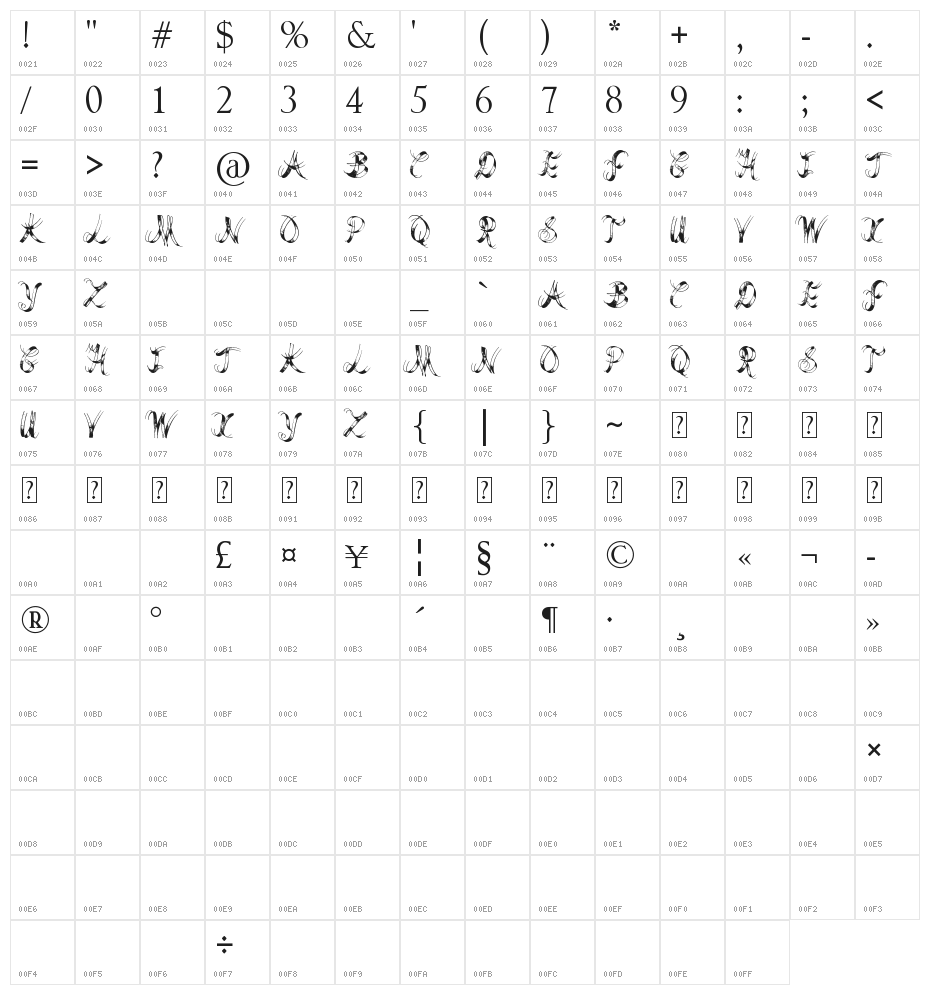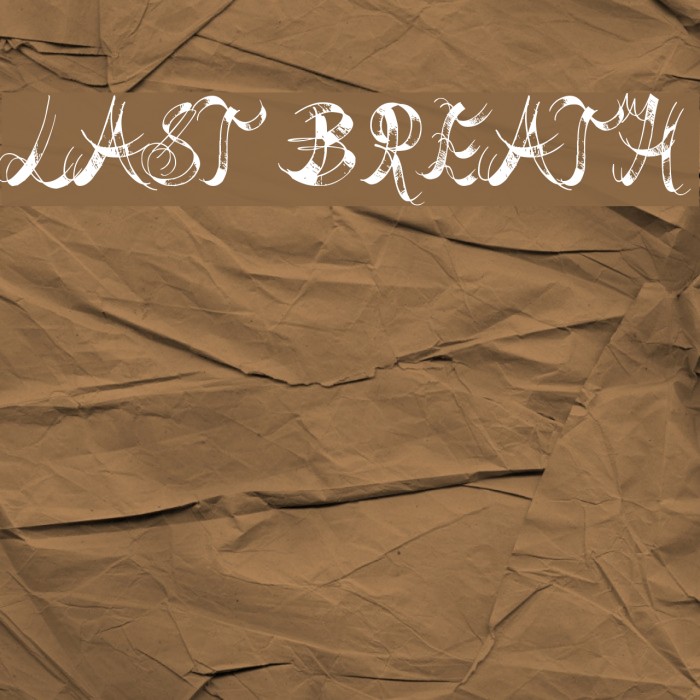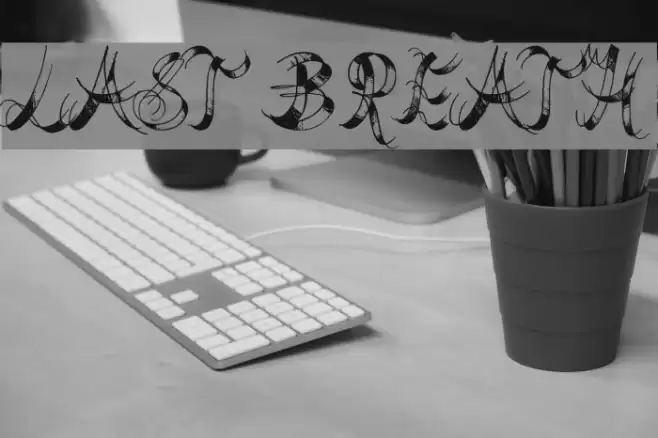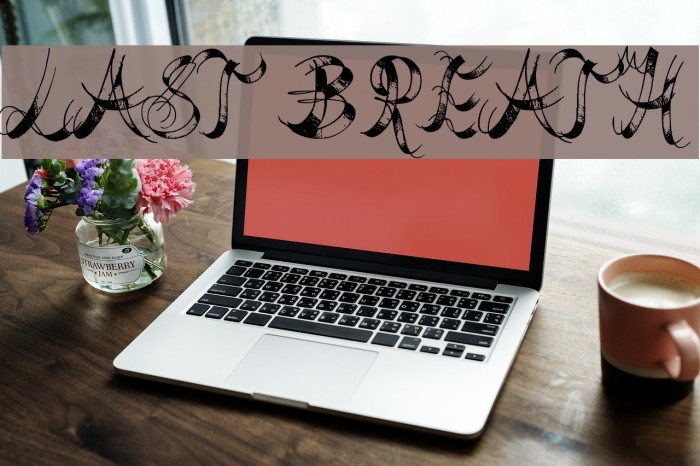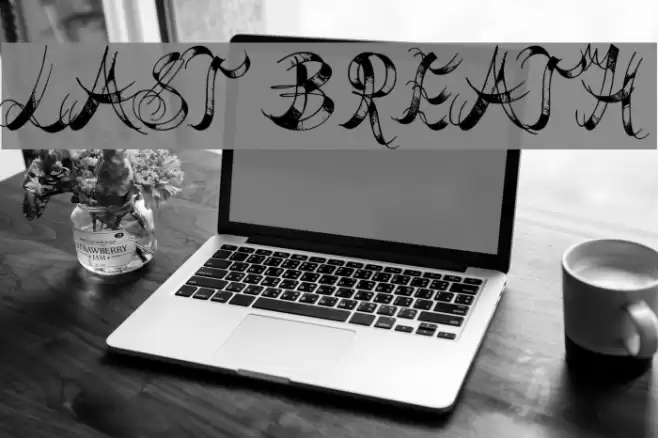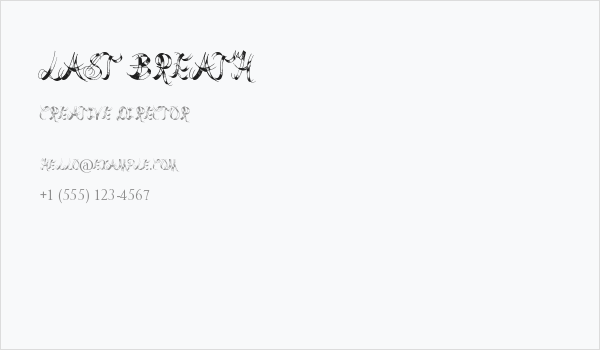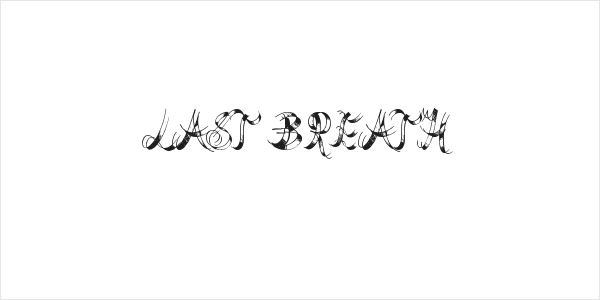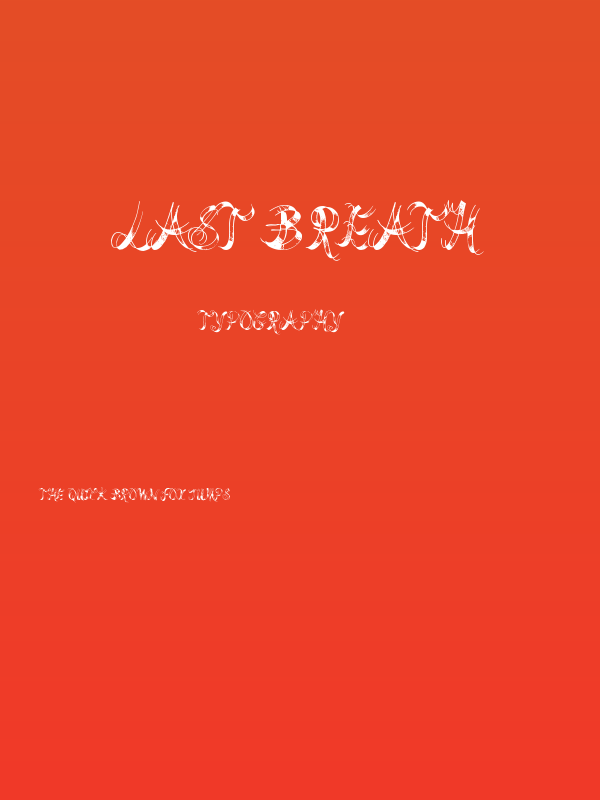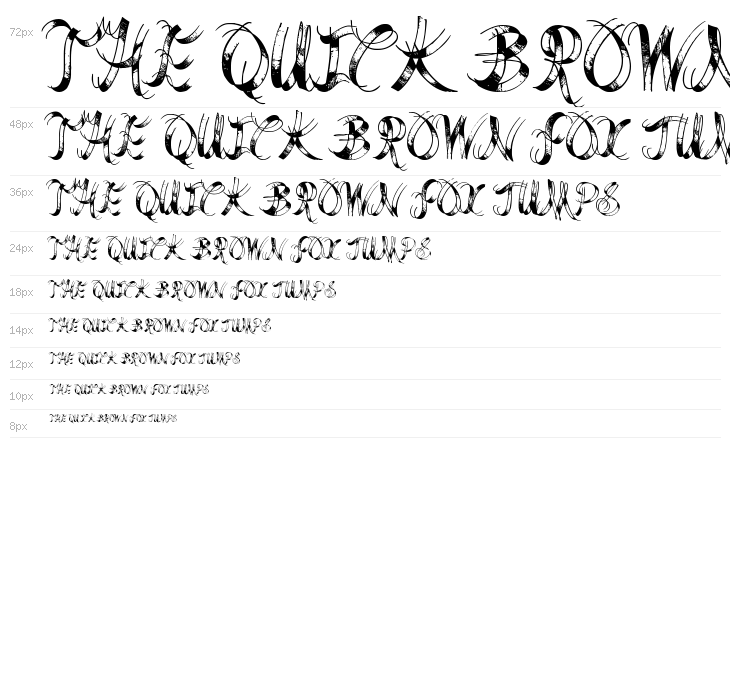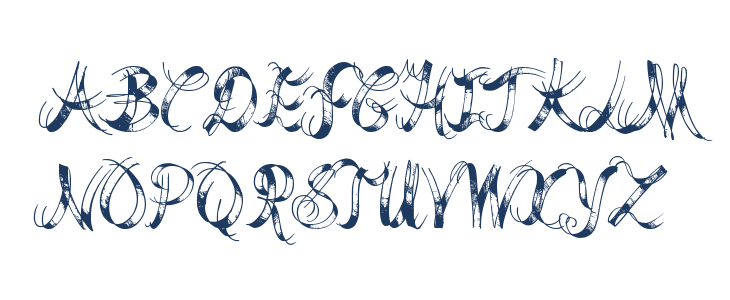
Last Breath Font
Last Breath Description
This font features an intricate and decorative style, characterized by its swirling, ornate design. Each letter is adorned with elaborate flourishes that give it a unique and artistic appearance. The uppercase and lowercase letters maintain a consistent style, with the uppercase being slightly more pronounced in their embellishments. The numbers are bold and clear, providing a nice contrast to the more elaborate letters. Special characters are also included, maintaining the same decorative flair. This font is ideal for projects that require a touch of elegance and creativity, making it suitable for invitations, artistic posters, and branding that seeks to stand out.
| Use Case | Logos, Invitations, Artistic Posters |
| Proposed Projects | Ideal for wedding invitations, artistic posters, branding, and any project requiring an elegant touch. |